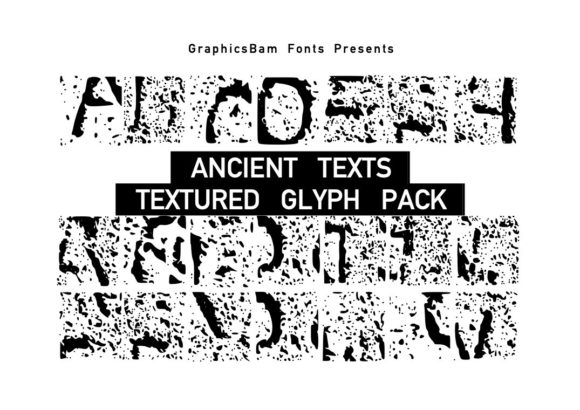
Adorn your designs with the charm of antiquity using Ancient Texts Glyphs, a captivating dingbats font family meticulously crafted by GraphicsBam Fonts. Inspired by the whispers of ancient civilizations, this font breathes life into your designs, transporting you to an era of historical intrigue. Unleash your creativity and let your imagination run wild, for the possibilities are endless with this remarkable font.
Ancient Texts Glyphs is more than just a font; it's an artistic odyssey that captures the essence of history and heritage. With its intricate carvings reminiscent of ancient stone tablets, this font adds a touch of timeless elegance to your projects. From wedding invitations that exude vintage charm to handcrafted projects yearning for a rustic flair, Ancient Texts Glyphs is your gateway to a world of boundless creativity.
Step into a realm of visual enchantment where ancient wisdom meets modern artistry. Let the enigmatic aura of Ancient Texts Glyphs captivate your audience, evoking a sense of wonder and awe. With its array of mesmerizing glyphs, each stroke and curve tells a unique tale, promising to elevate your designs to newfound heights of sophistication.